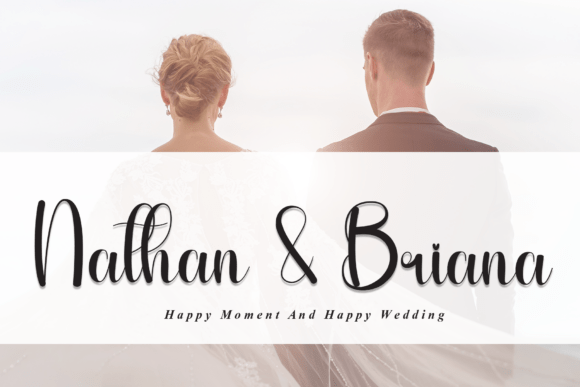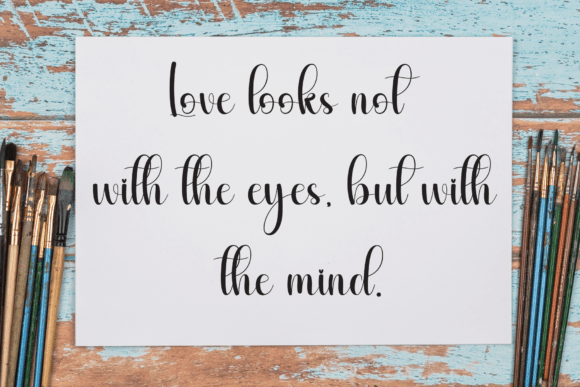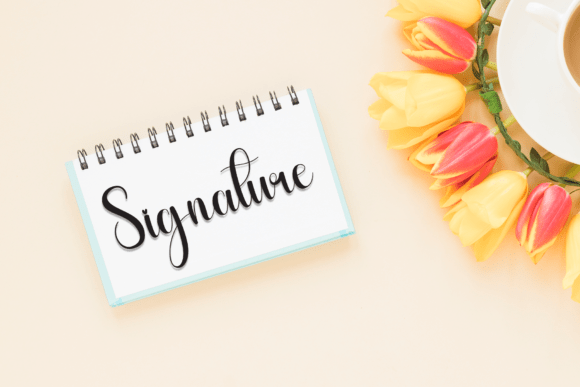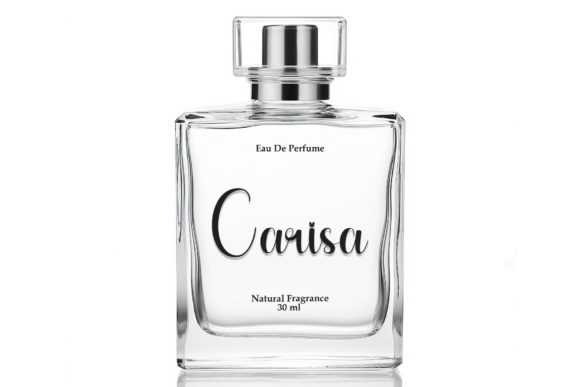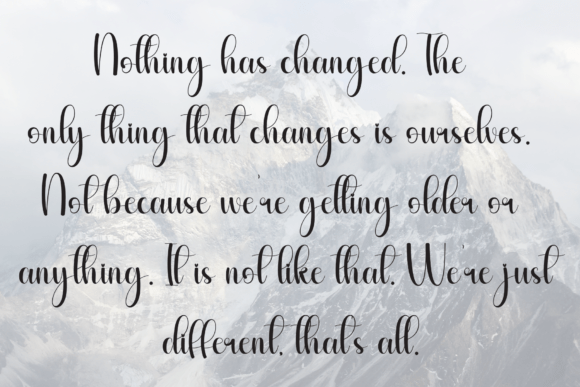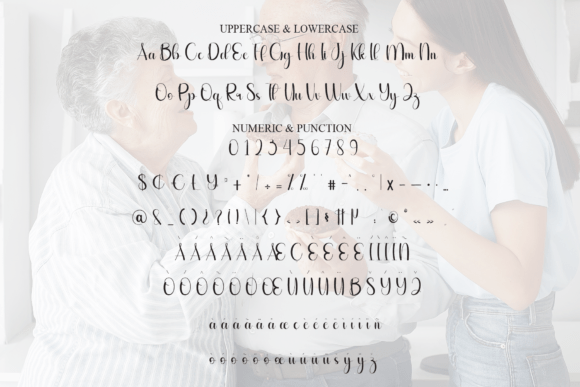
Introduction to New Grandma Font
Have you ever found yourself rummaging through a dusty old trunk in your grandmother’s attic, uncovering forgotten family heirlooms and stories? It’s in these moments that the beauty of handwritten history comes alive. The same charm and elegance can now be brought into your designs with the introduction of the New Grandma Font.
As a valuable addition to any designer’s toolkit, this stylish handwritten script font is sure to elevate your creative projects. With its smooth, flowing strokes and natural feel, the New Grandma Font is perfect for branding, invitations, and any other design that requires a touch of sophistication and charm.
Key Features of New Grandma Font
- High-quality, unique design perfect for creative projects, including invitations, greeting cards, and scrapbooking.
- Unique characteristics include a playful, cursive script and elegant flourishes, adding a touch of sophistication to any design.
Honest Review: New Grandma Font
- What works well: ✨ The font’s playful, cursive style adds a touch of whimsy to any design. It’s perfect for projects that require a bit of personality.
- What works well: ✨ The high quality of the font ensures that it will look great even at larger sizes, making it a great choice for headings or titles.
However, I did encounter a few limitations: ⚠️ The font may not be suitable for formal or professional designs, as it can come across as a bit too casual. Additionally, the character set could be more extensive, especially for non-English languages.
Overall, I’m impressed with the New Grandma Font. It’s a great addition to any designer’s toolkit, and I can see it being used in a variety of creative projects. With a bit more development, I think this font has the potential to become a go-to choice for designers looking for a unique, high-quality option.
Getting the Most Out of New Grandma Font
To get the most out of the New Grandma Font, experiment with different font sizes, colors, and combinations with other fonts. Use it for headings, titles, and body text to add a touch of elegance to your designs.
The New Grandma Font is perfect for wedding invitations, birthday cards, and other special occasion designs. It’s also great for branding and logo designs that require a sophisticated, elegant look.
Yes, the New Grandma Font is designed to be a high-quality font, making it suitable for use in high-resolution design projects. The font’s crisp lines and clear typography ensure that it will look great even at large sizes and high resolutions.